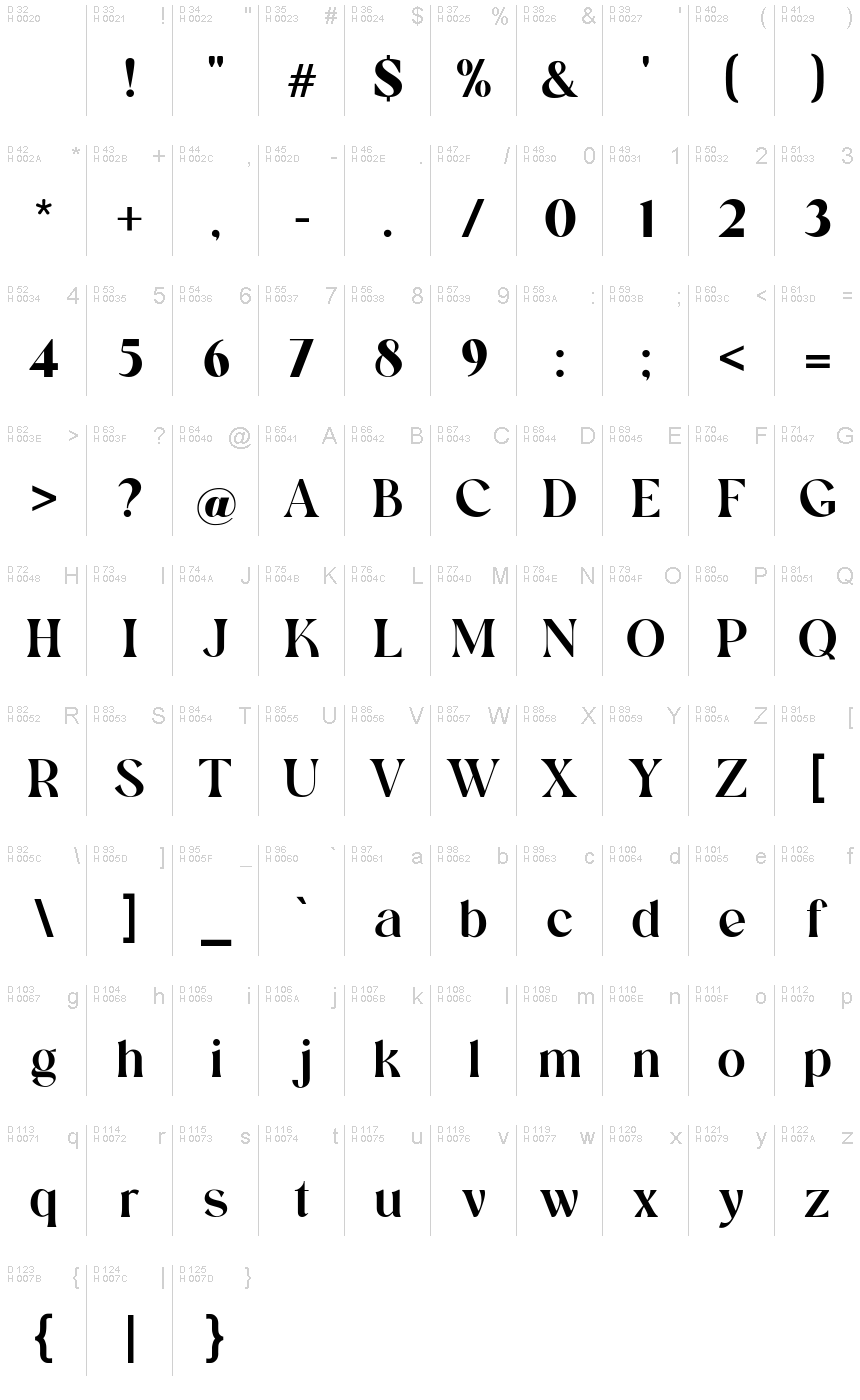
AluvionDisplay
The Aluvion Display font exudes a timeless elegance, seamlessly blending classic serif elements with a modern, refined aesthetic. Crafted by the talented team at UI Creative, this typeface captivates with its intricate letterforms, subtle variations, and impeccable balance. The sharp, geometric serifs complement the smooth, flowing strokes, creating a harmonious and visually compelling typographic experience.
Aluvion Display shines in a variety of design applications, from high-end editorial layouts to sophisticated branding and packaging design. Its versatility allows it to effortlessly transition between formal and informal settings, making it a versatile choice for designers seeking to elevate their projects with a touch of refined sophistication.